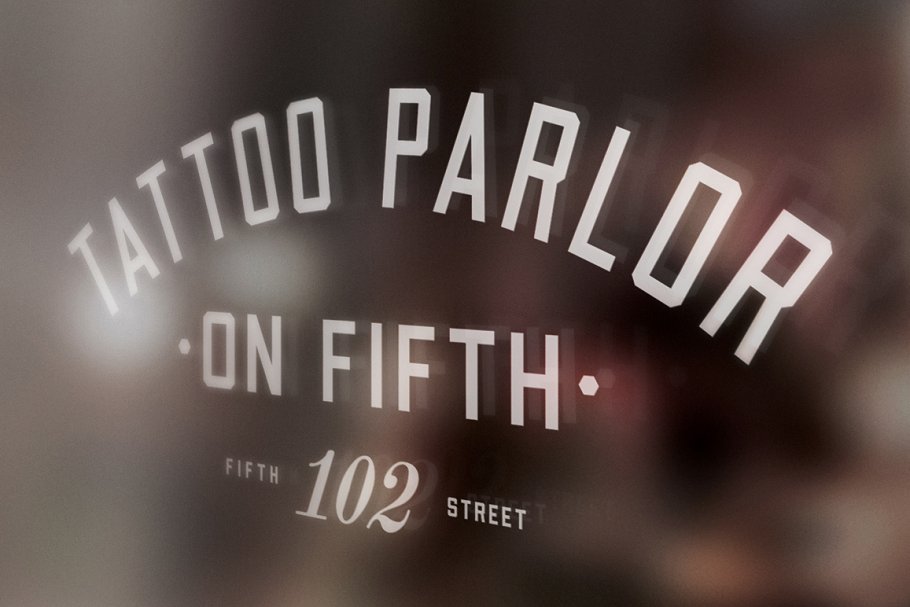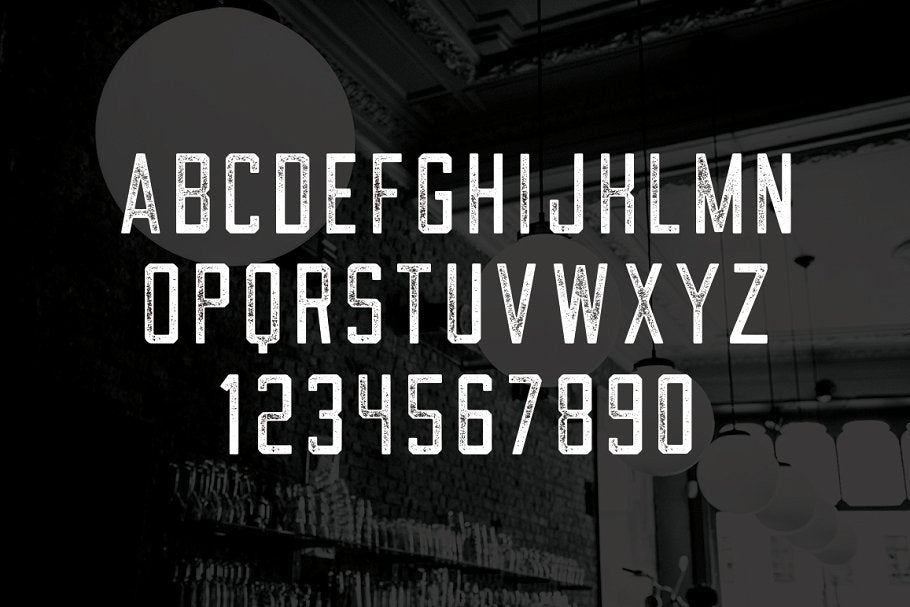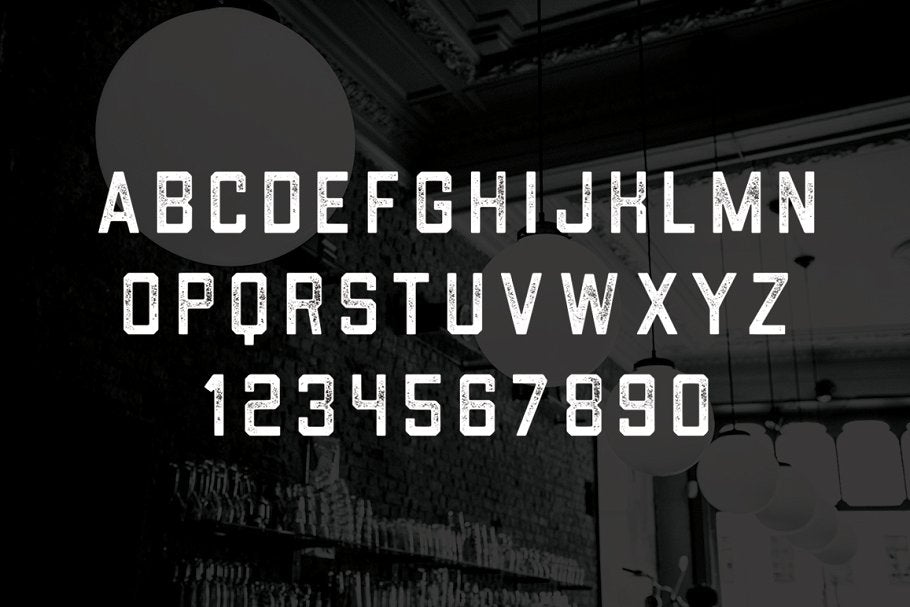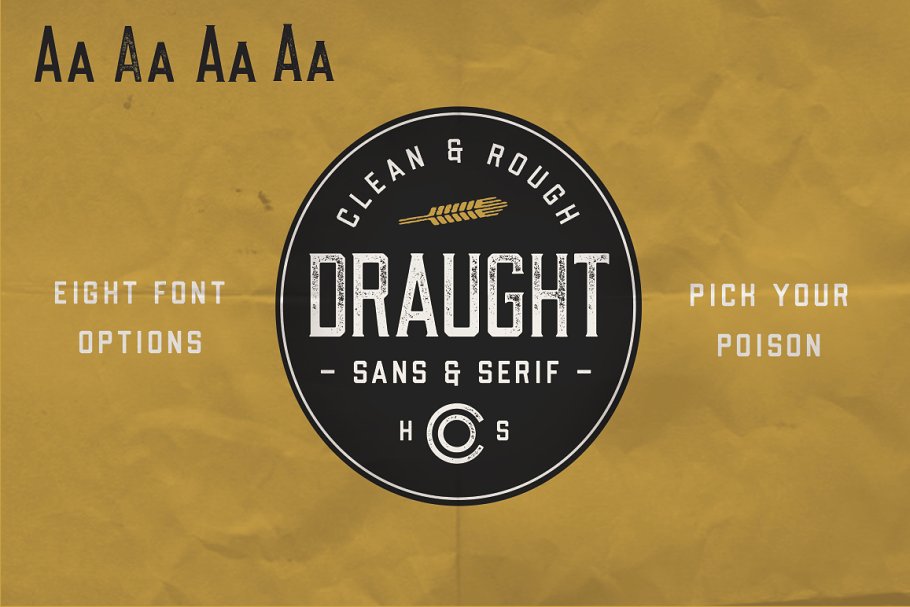
The Brewers Font Collection: 8 Fonts
The Brewers Collection
The Brewers Collection is 8 fonts in total. The font family inside is named Draught. This family is an All-Caps family with Sans & Serif options as well as Regular & Condensed versions. On top of that, Draught comes with textured counterparts of each typeface described above.
The Purpose
Draught was made to be a work horse. The intent was to create a family that had pairings that could easily achieve the desired industrial aesthetic. This product will work very well for Restaurant, Brewing Company, Labelling, Menu's, Signage, Vintage Websites, Apparel, Coffee Shops, Etc.
The Texture
Get a refined Letterpress inspired texture for every style. I made sure that the texture was the perfect amount. Not too much & not too subtle. The quickest way to achieve an Aged Vector File.